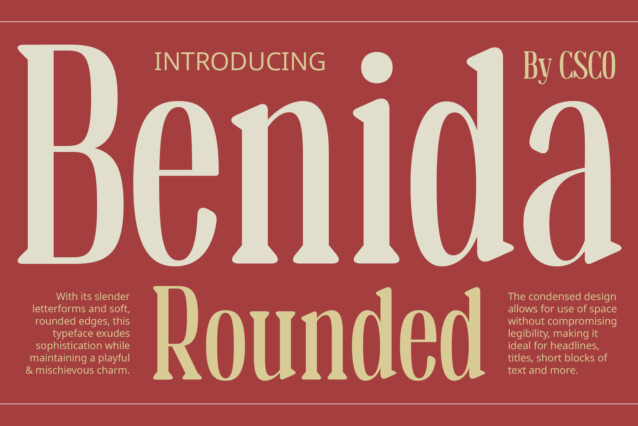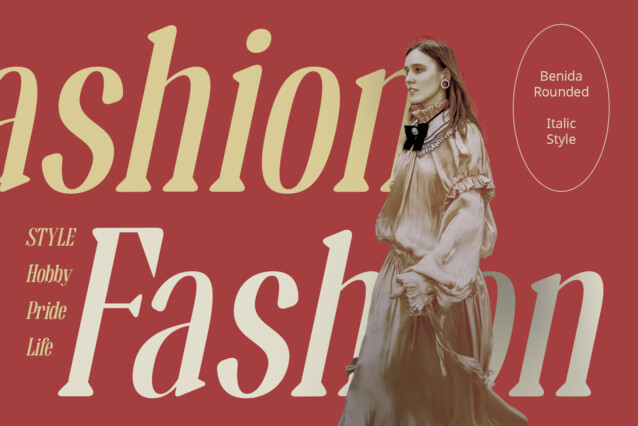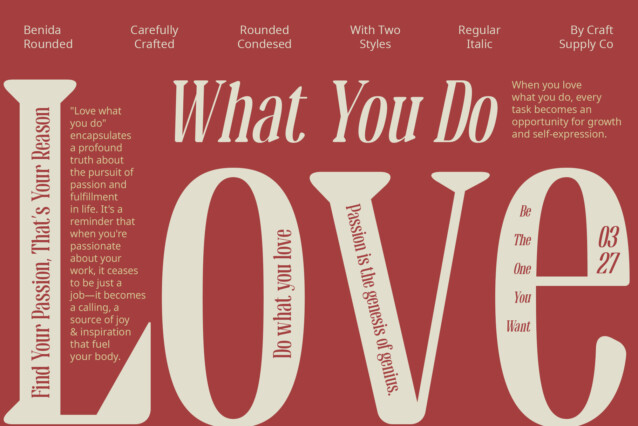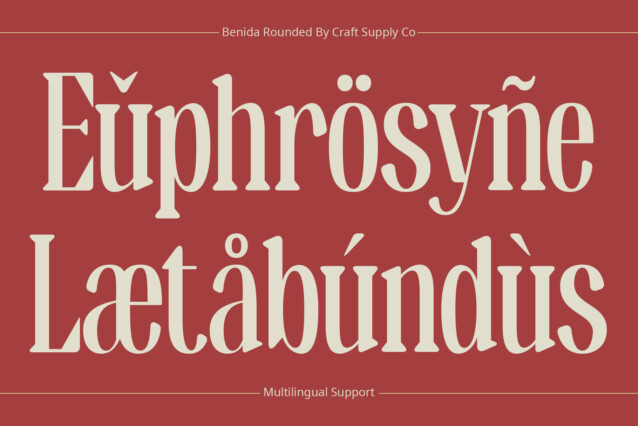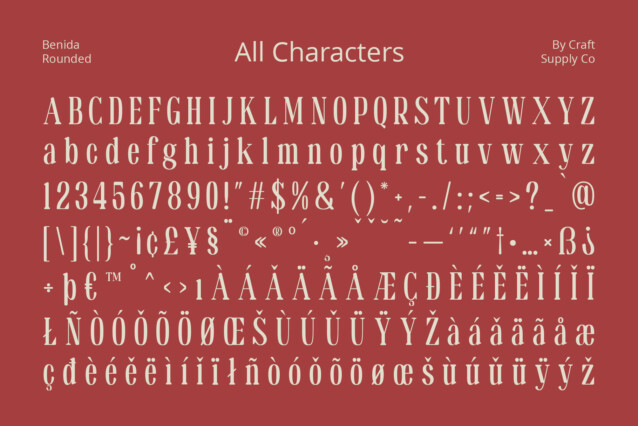
Benida Rounded Font
Benida Rounded Font: The Perfect Blend of Strength and Friendliness. Benida Rounded features a sleek serif design with rounded edges, creating a harmonious balance between sharpness and softness. Its condensed shape adds a sense of compactness and efficiency to the characters.
Assertive yet Approachable
With its condensed and rounded shape, This font exudes a sense of firmness while maintaining a friendly and welcoming vibe. It strikes the perfect balance between assertiveness and approachability, making it suitable for a wide range of design purposes.